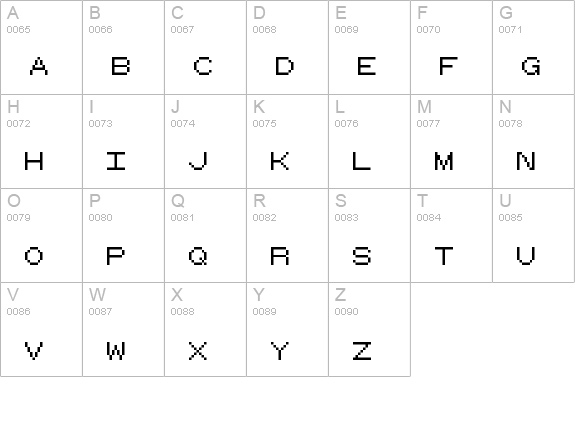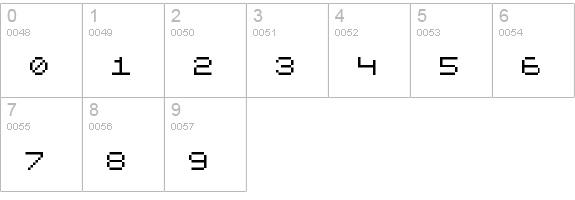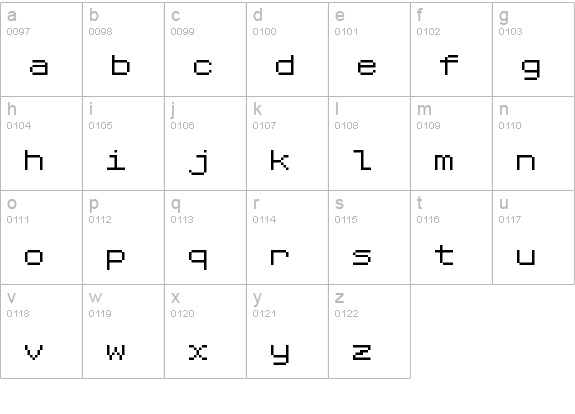
Roentgen NBP font is a stunning display typeface that seamlessly combines elegance and modernity. With its sharp edges and clean lines, this font exudes a sense of sophistication that is perfect for a wide range of design projects. Whether you're creating eye-catching logos, professional-looking advertisements, or captivating headlines, Roentgen NBP font is sure to make a bold statement. What sets Roentgen NBP font apart is not just its striking aesthetics, but also its versatility. This font is designed to work harmoniously across various platforms and mediums, making it an ideal choice for both print and digital applications. Its legibility remains intact no matter the size or resolution, ensuring that your message is always clear and impactful. But perhaps the most remarkable aspect of Roentgen NBP font is that it is free. Yes, you read that right. This font is freely available to download at FontsMarket.com, a trusted source for high-quality fonts. This means that you can enhance your designs with a premium font without having to spend a dime. So why wait? Download Roentgen NBP font today and elevate your design projects to new heights. With its sleek and modern look, this font is sure to captivate your audience and leave a lasting impression. Whether you're a professional designer or a passionate hobbyist, Roentgen NBP font is a must-have addition to your font library. Get it now and let your creativity soar like never before.